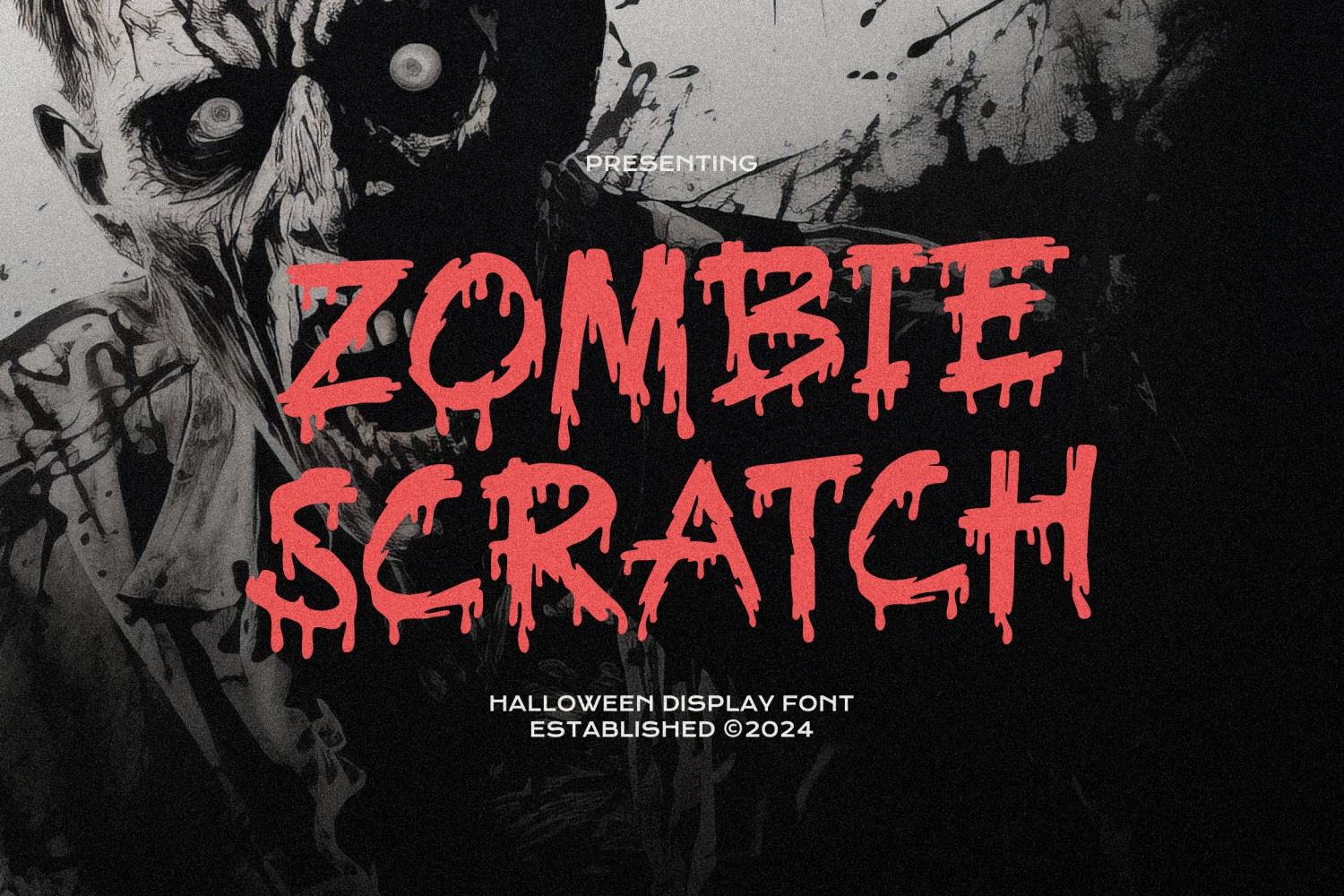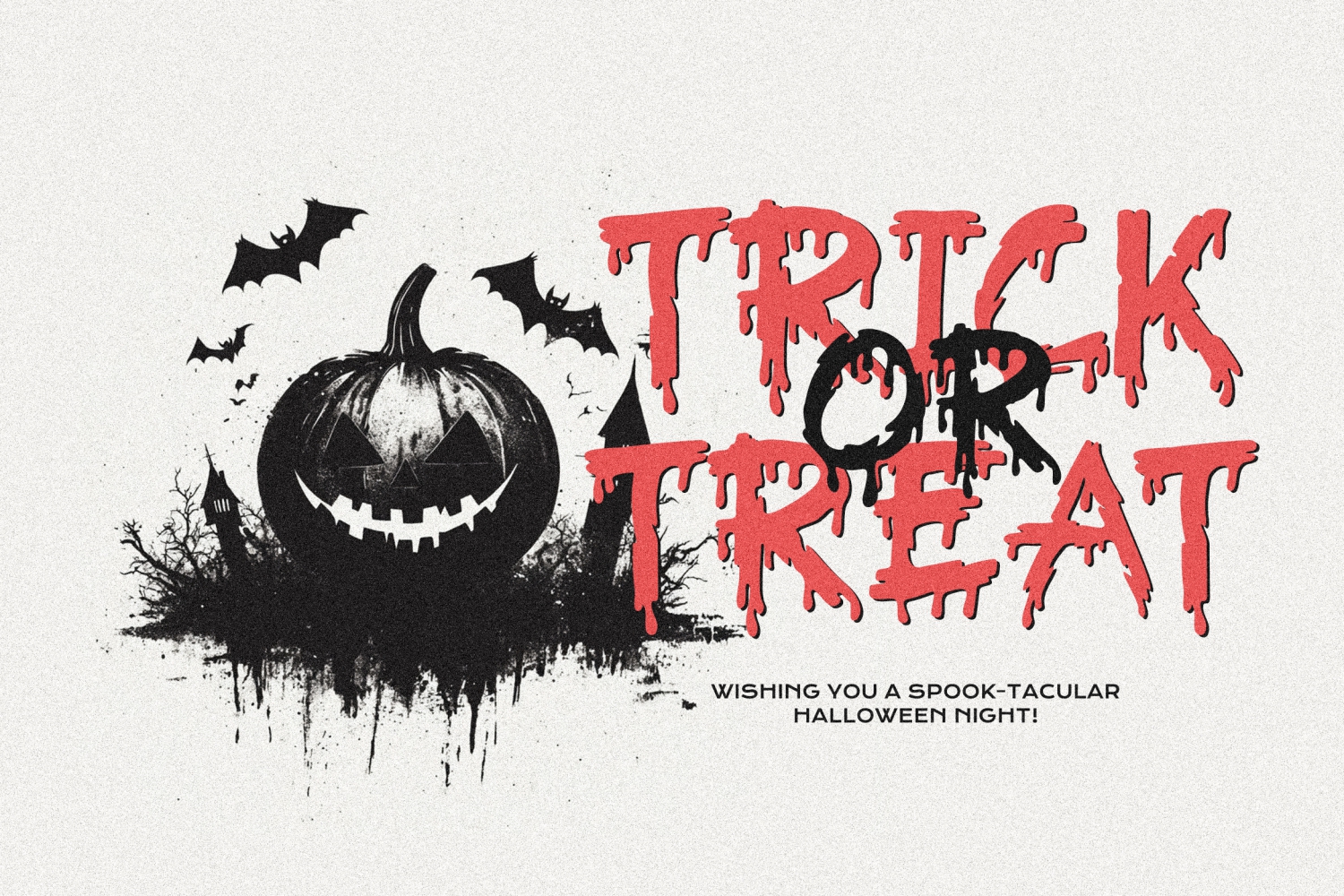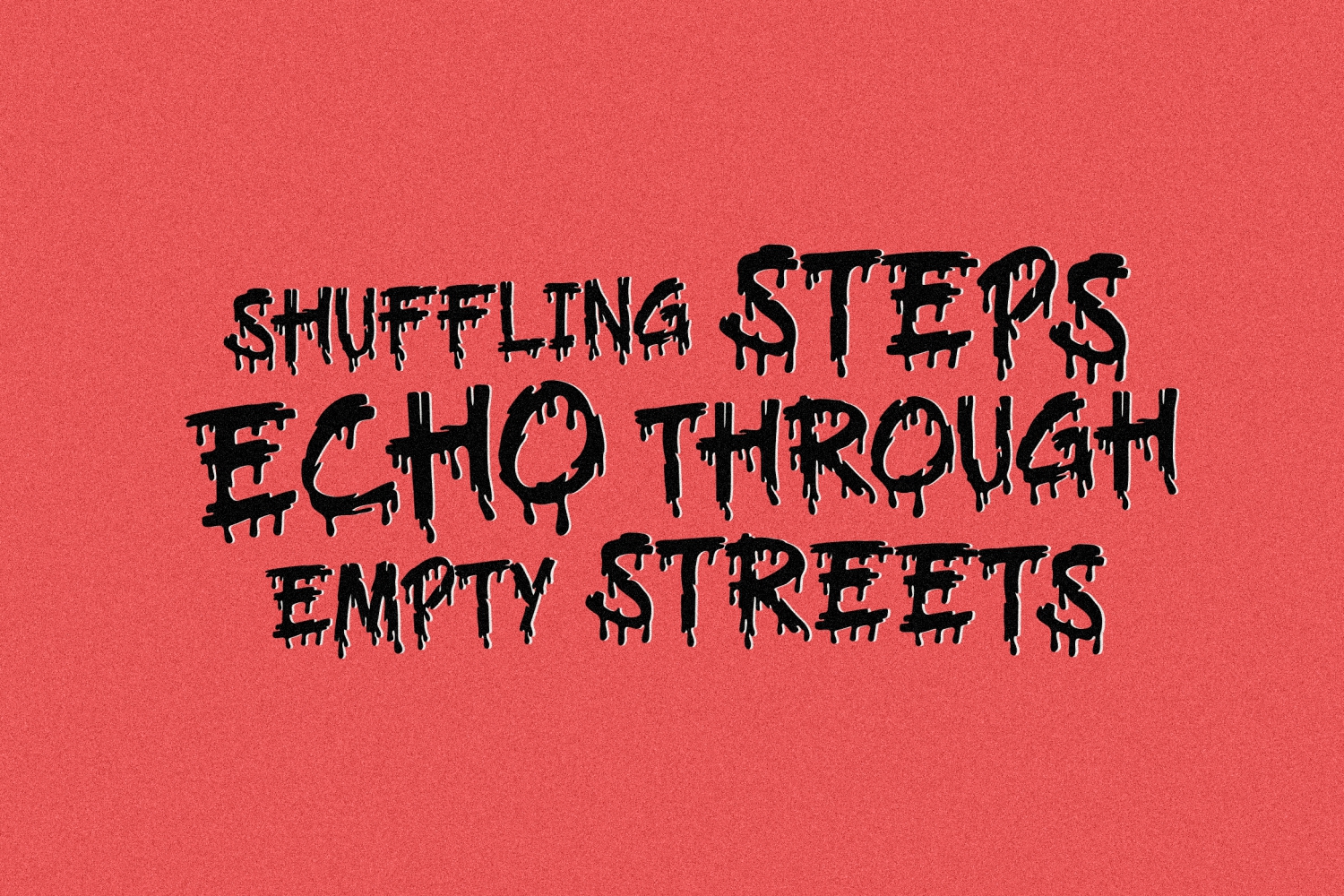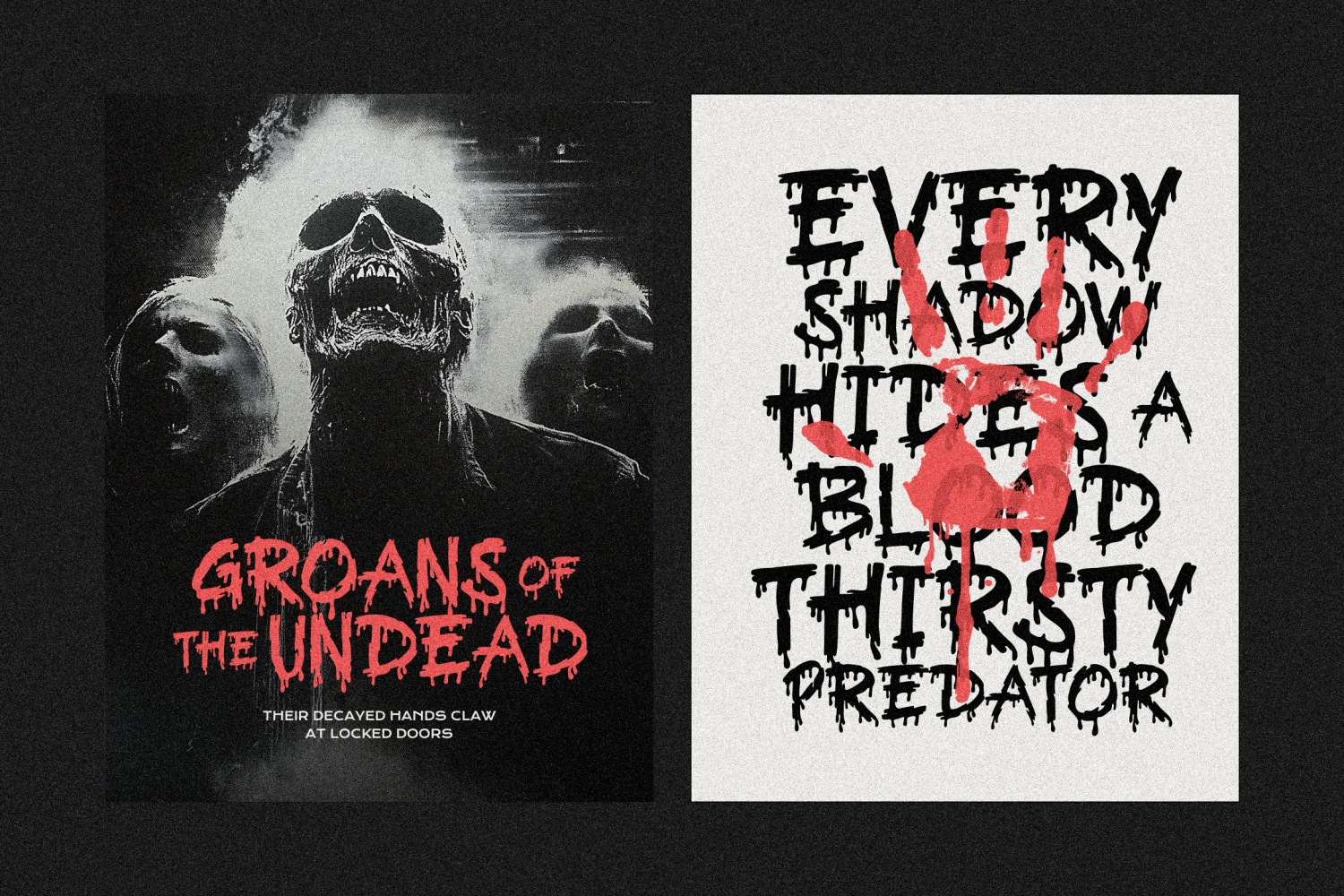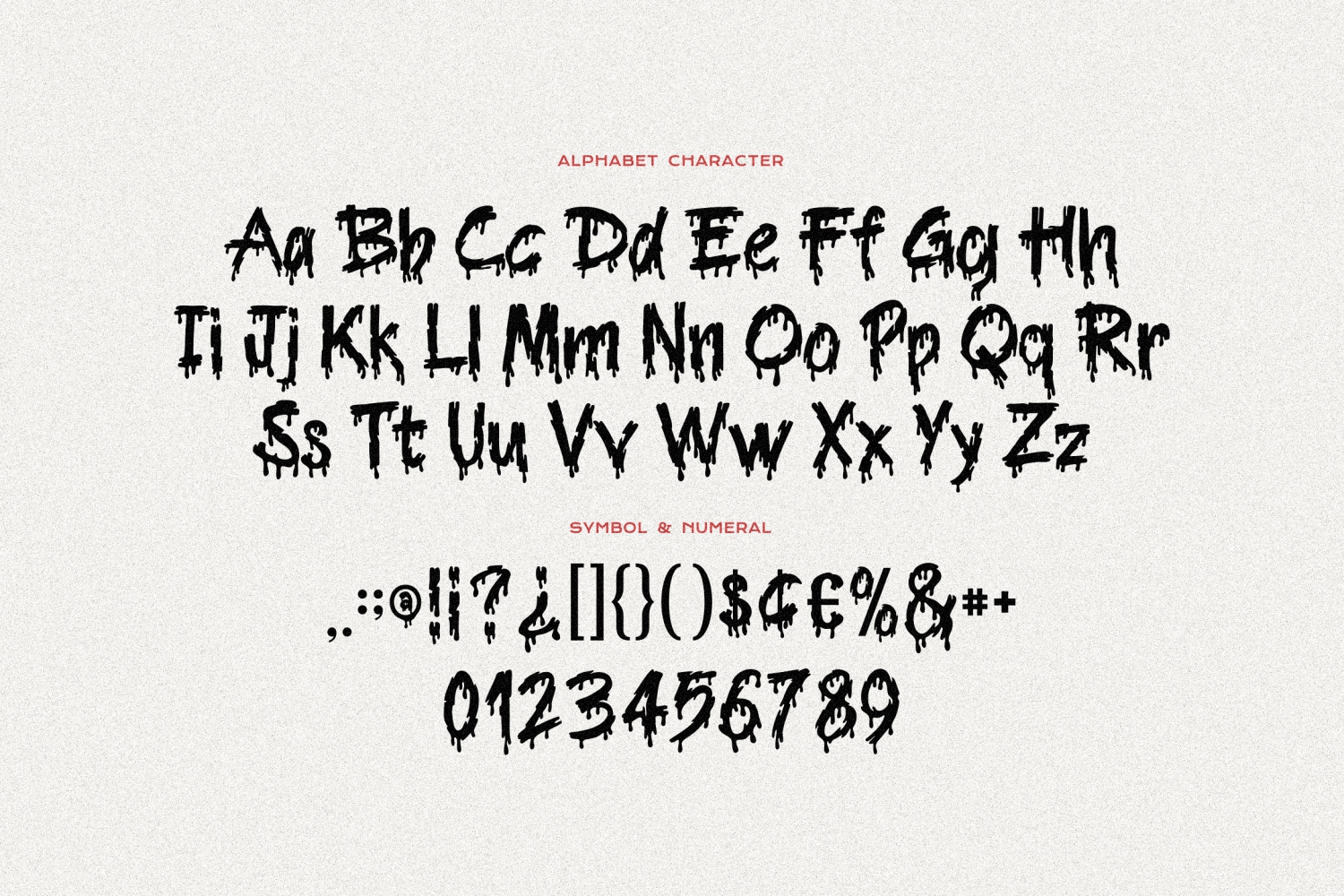
Zombie Scratch is a horrifyingly fun Halloween display font with a raw, dripping design that screams terror and chaos. Each letter appears slashed, scratched, and oozing, perfect for capturing the eerie vibe of zombies, haunted houses, horror films, and creepy party invitations. This font instantly sets the tone for anything spooky and thrilling, making it an essential tool for October designs.
Designed with complete uppercase, lowercase, numerals, punctuation, and symbols, Zombie Scratch gives you the flexibility to unleash horror on posters, apparel, packaging, or movie titles. Whether you’re designing for Halloween night or a year-round horror brand, this font delivers blood-curdling impact in every letter.